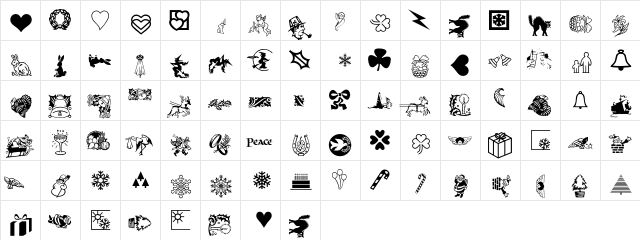
Holidays Regular
Design Context for Holidays Typeface
Holidays is a composed and adaptable typeface that performs quietly and consistently across a wide range of design contexts.
Pro Tip: Use Holidays in both headline and body roles to test its range before committing to a single application.